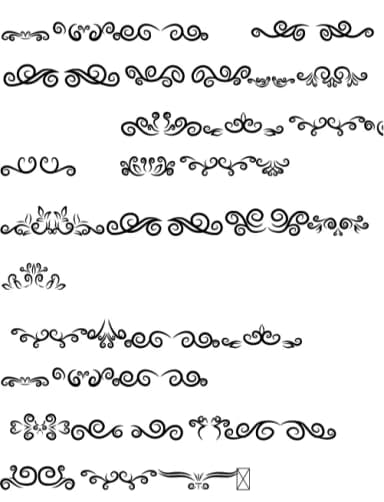
Picture yourself laying out a vintage-themed greeting card, searching for the right decorative dividers to frame your handwritten message. Heart Divider by CraftedType Studio is a charming dingbat font overflowing with retro ornaments and western-inspired flourishes that solve that exact design need. This collection shines across scrapbooking page headers, vintage wedding invitation suites with ornamental borders, Etsy product labels for handmade goods, and DIY craft signage that needs warmth and character. The retro aesthetic works equally well as a frame for elegant menu text or as scattered decorative elements throughout greeting card layouts. Each character carries that nostalgic quality without feeling overly staged or dated.
Heart Divider Font is a versatile dingbats font that works for both headings and body text. Pair it with a contrasting sans-serif or serif font to add visual interest and a clear distinction between titles and body copy.